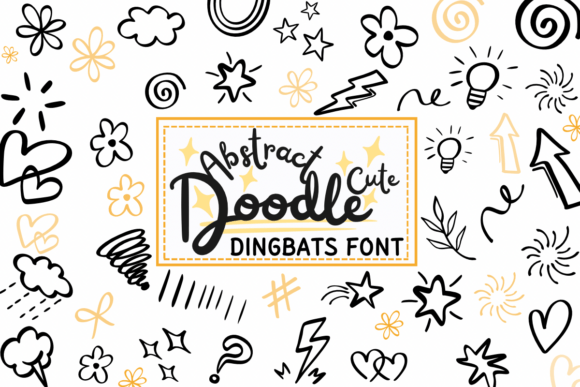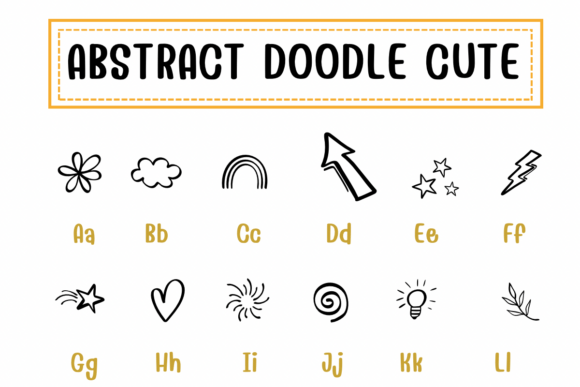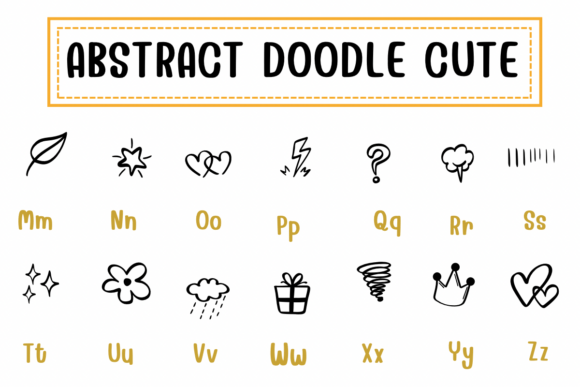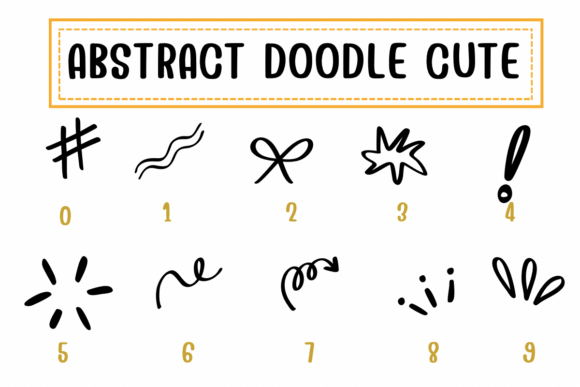
Abstract Doodle Cute Font
About the Abstract Doodle Cute Font
The wait is over! The incredible Abstract Doodle Cute Font is now available for your design toolkit. Add instant personality to your designs with the
Abstract Doodle Cute Font
– a delightful dingbats font packed with hand-sketched icons, stars, hearts, swirls, and more. With its casual charm and sketchbook feel, it’s ideal for planners, bullet journals, creative branding, and kid-friendly graphics. Whether you’re decorating text or designing a layout, these doodles bring a touch of spontaneous creativity.
This font’s playful, hand-drawn aesthetic shines in headlines, short bursts of text, logos, and social media graphics. It’s perfect for projects targeting a young, fun-loving audience, such as children’s books, playful branding for cafes or boutiques, or eye-catching social media campaigns. Avoid using it for body text or lengthy paragraphs; its informal nature makes it unsuitable for large blocks of text.
Pairing it with a clean sans-serif like Open Sans for body copy creates a balanced contrast, highlighting the font’s decorative nature. For a more sophisticated look, consider a classic serif such as Garamond for supporting text, providing a touch of elegance that complements the doodle’s charm. Alternatively, a geometric sans-serif like Montserrat could offer a modern counterpoint.
Abstract Doodle Cute Font exudes a friendly, approachable personality. Its inherent charm and casual energy make it unsuitable for formal applications or projects requiring a serious or professional tone.
Abstract Doodle Cute Font Example